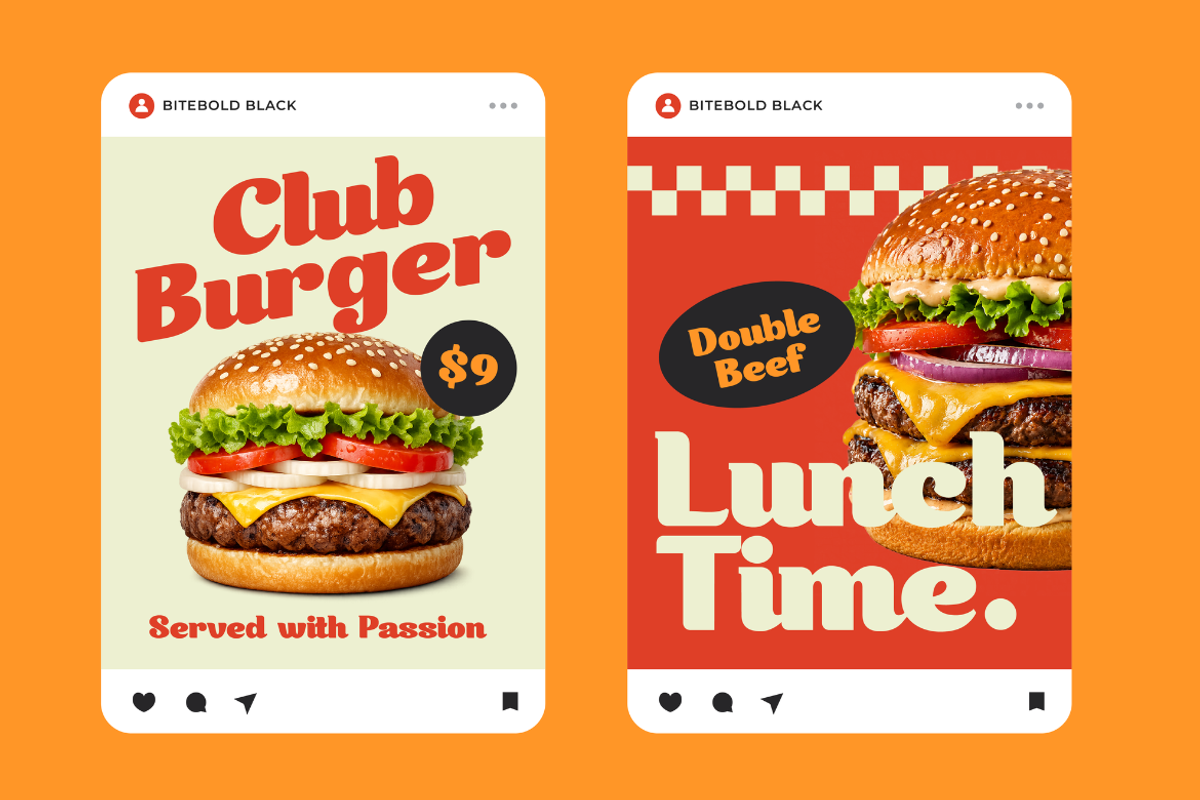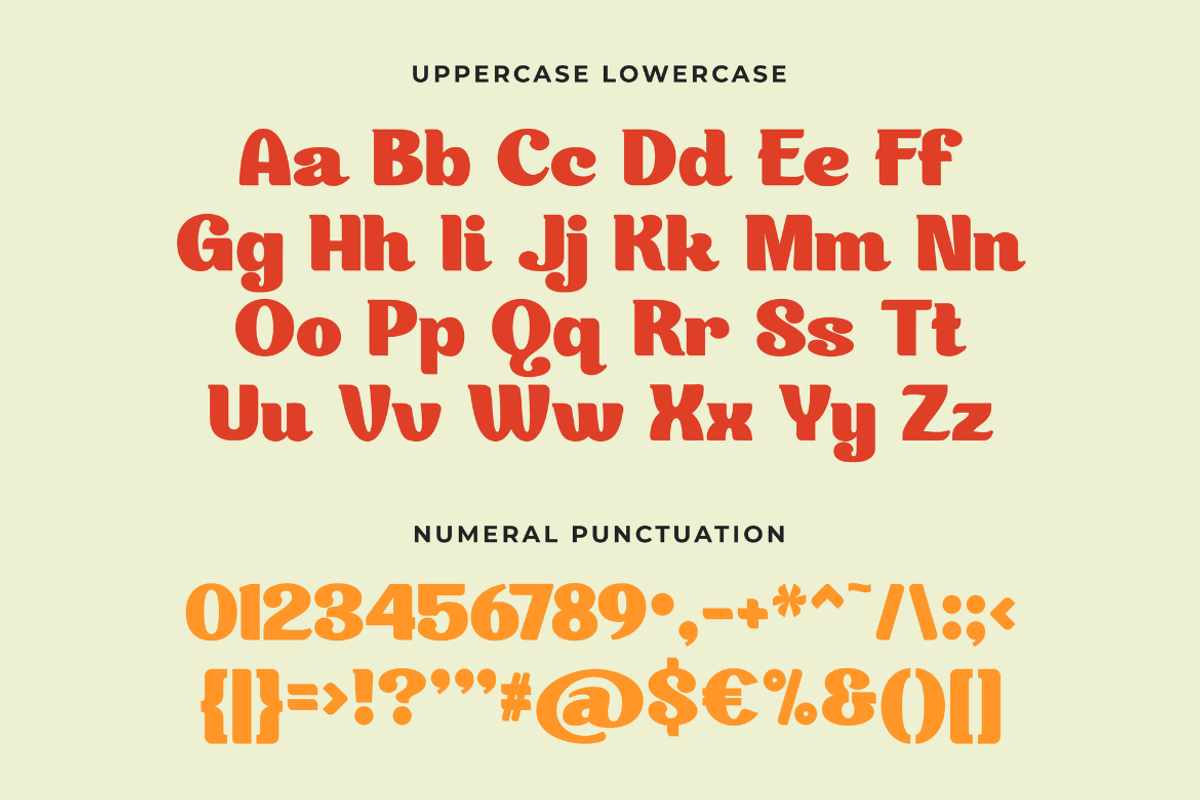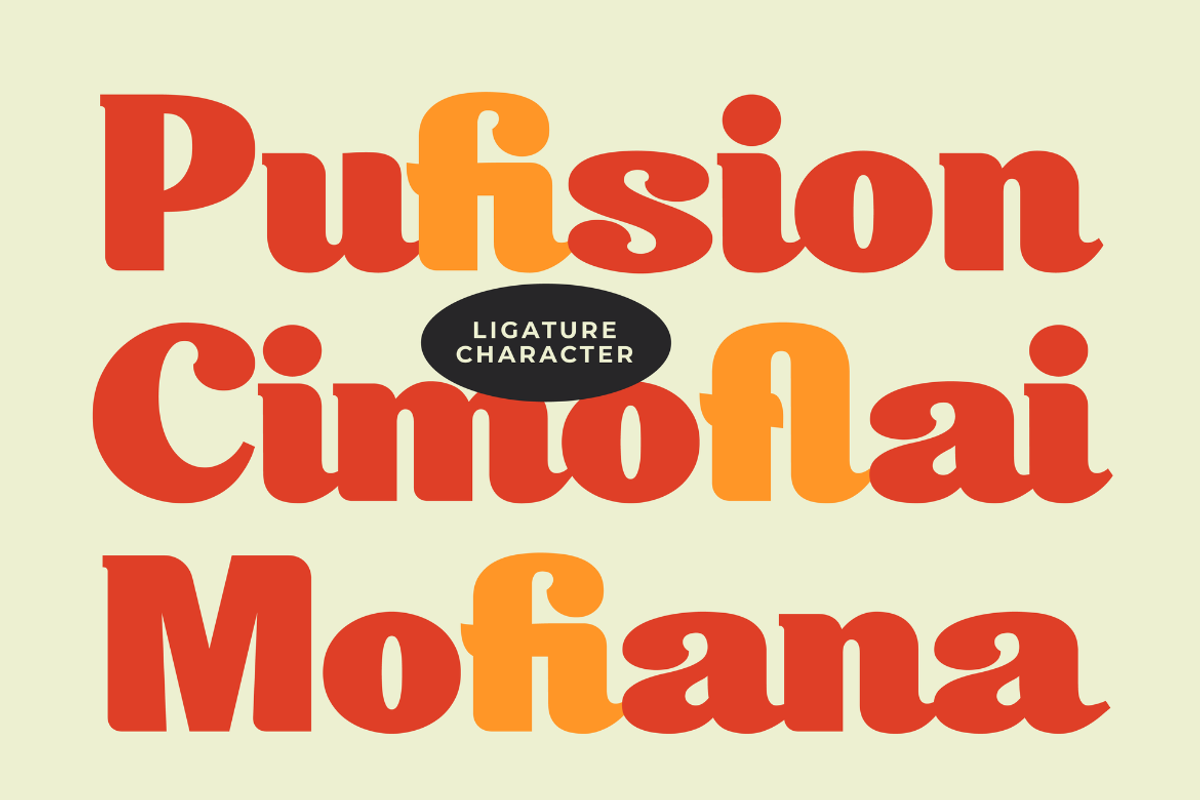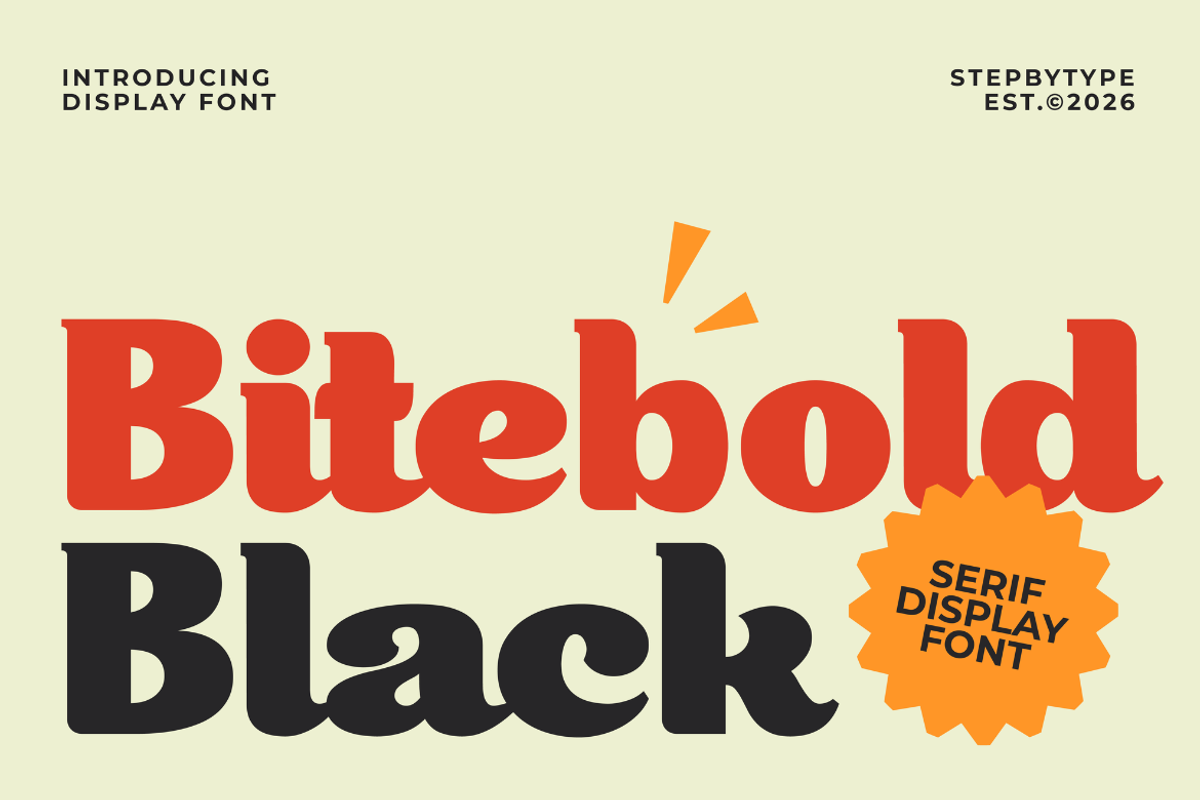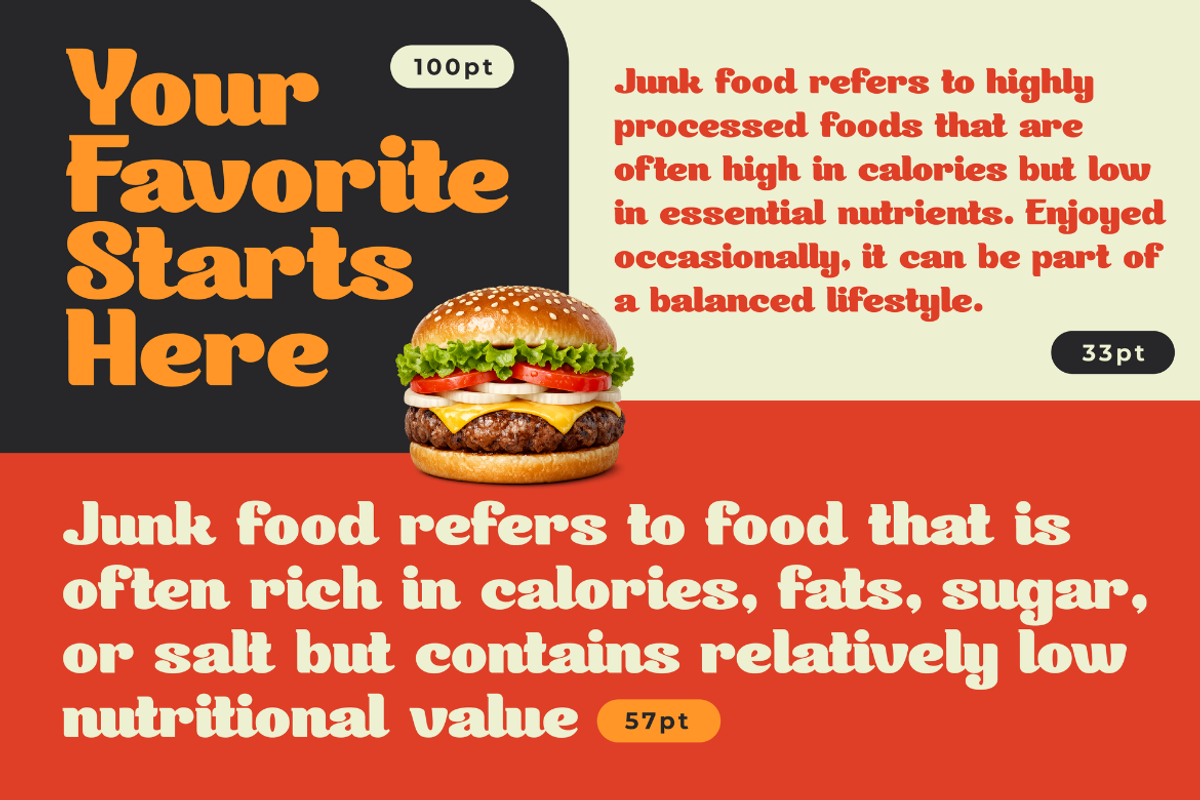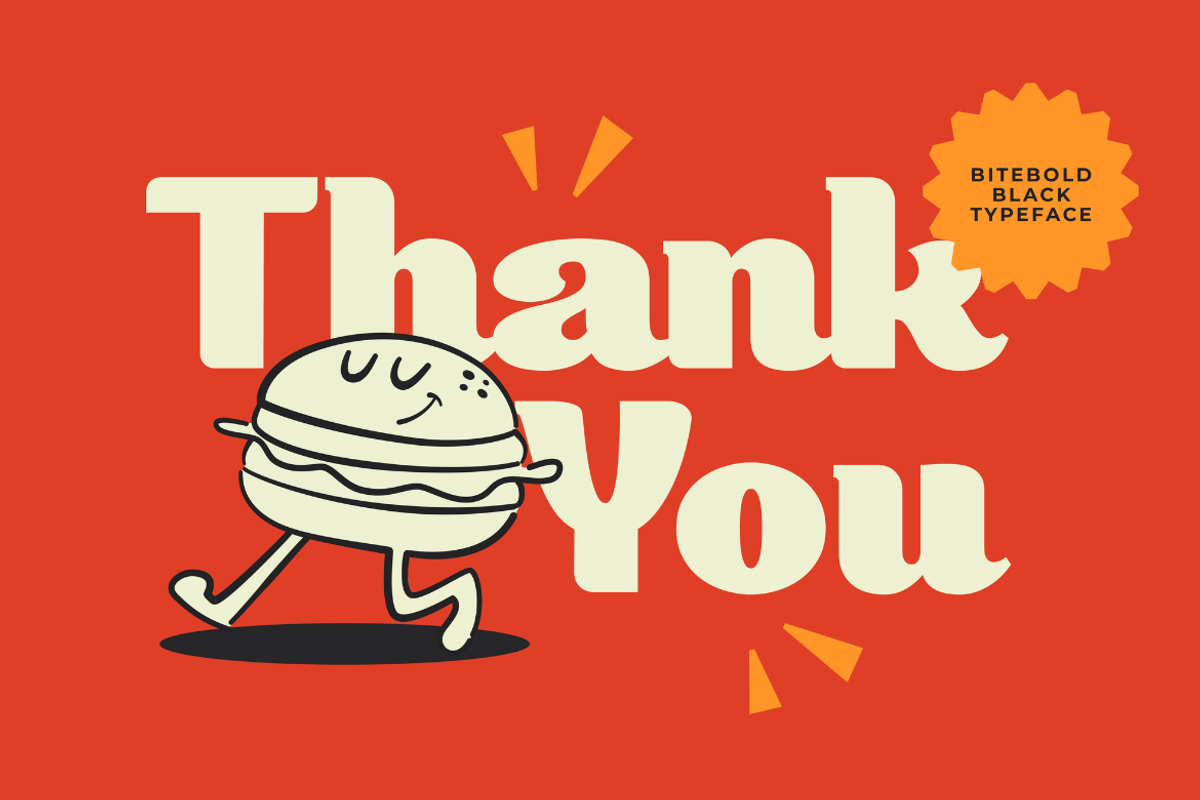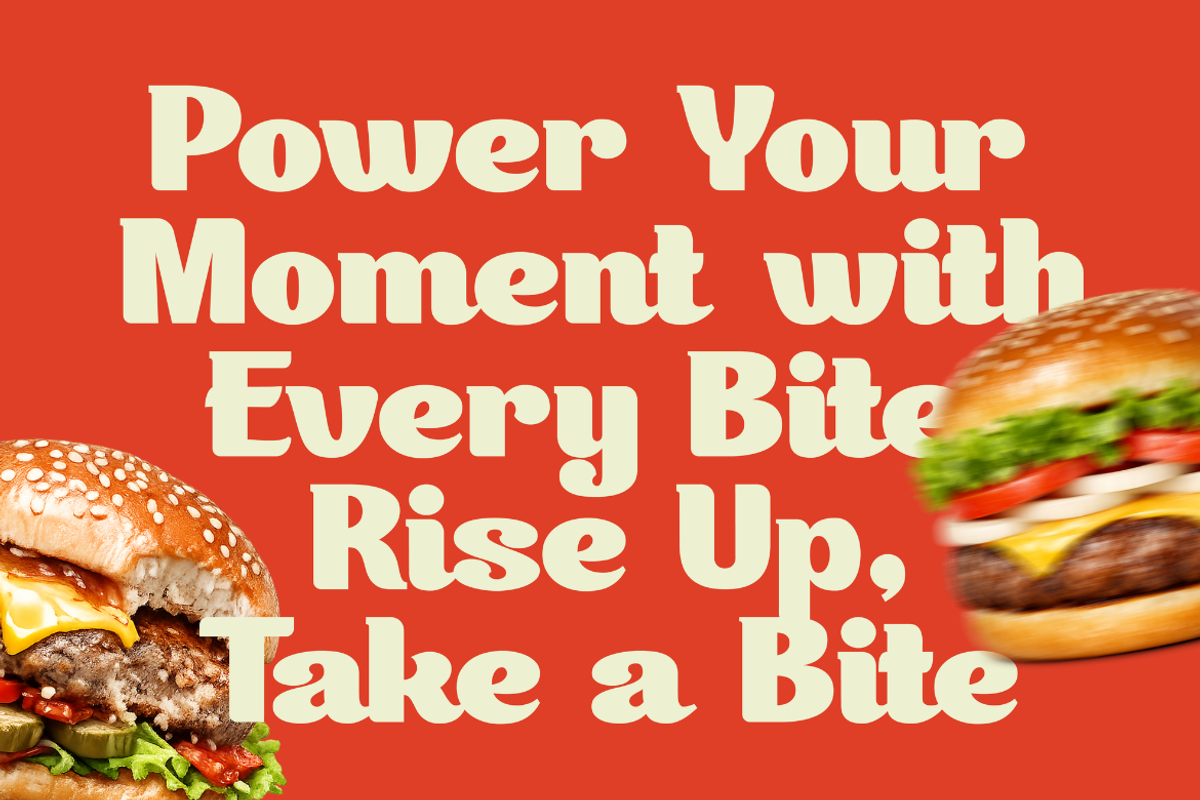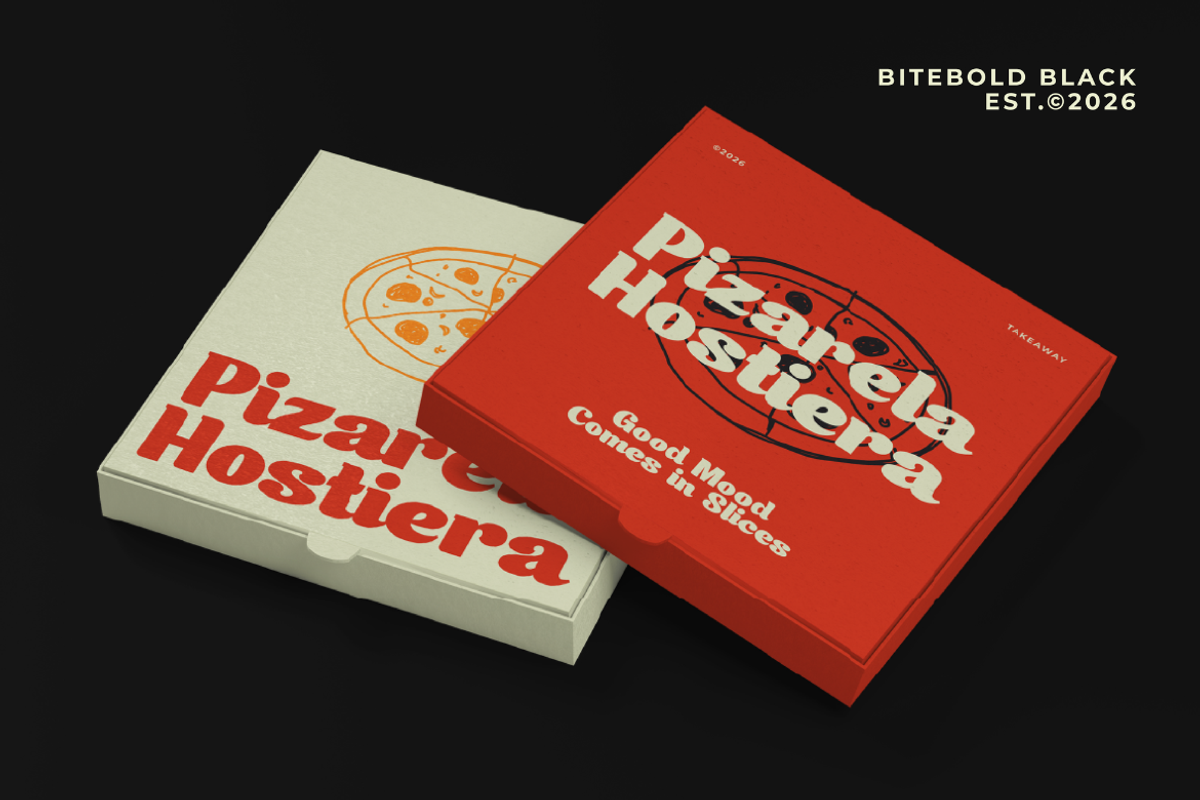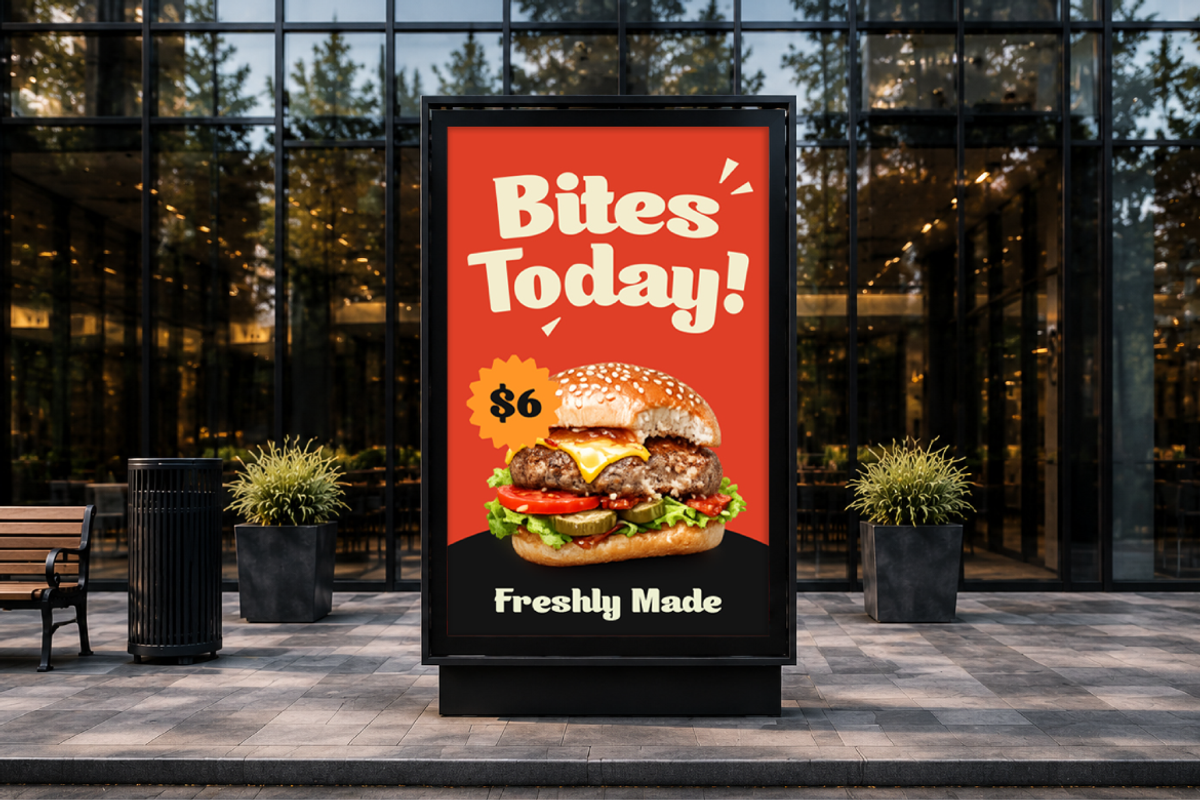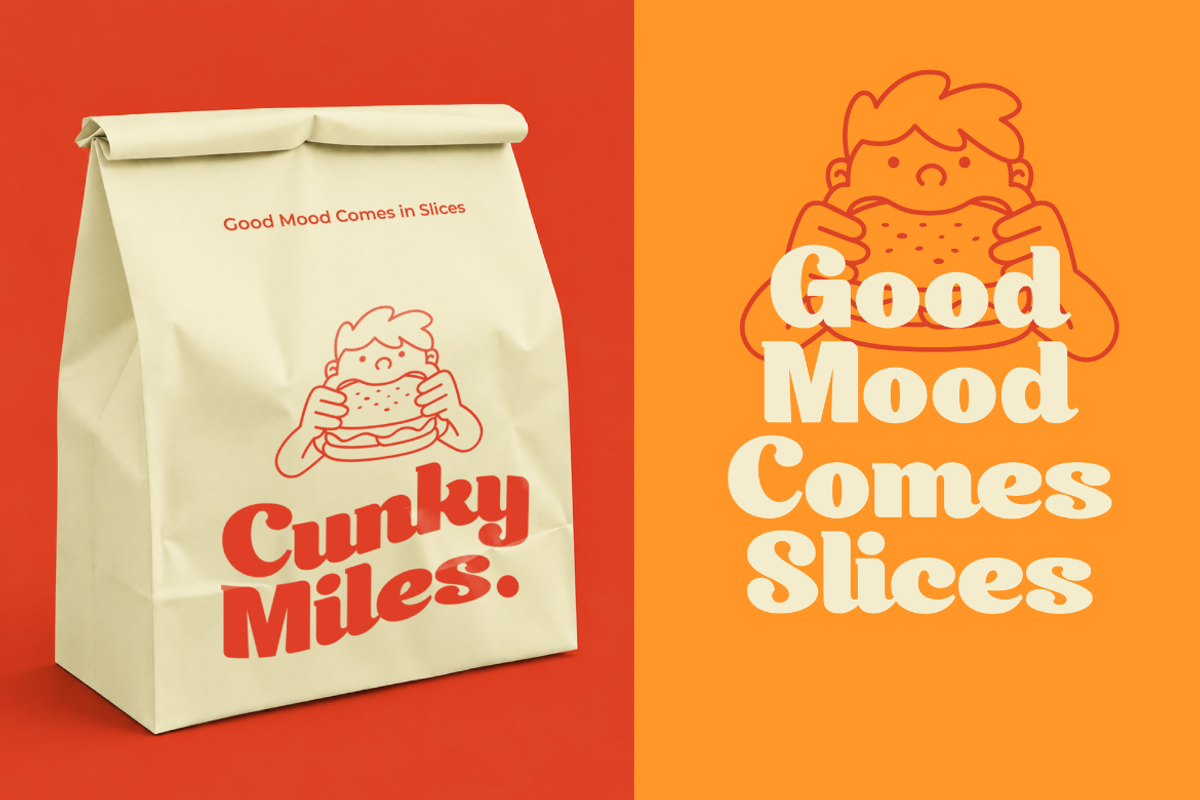
Bitebold Black
Bitebold Black is a heavy retro serif packed with curves, warmth, and mouth-watering personality. With its thick strokes, rounded terminals, and playful '70s energy, Bitebold Black is built to make food branding look irresistible — the kind of type that turns a menu, a burger box, or a sale poster into pure craving.
Where a clean display serif stays formal, Bitebold Black leans juicy and casual: friendly, bold, and full of flavor. With a complete set of uppercase, lowercase, numerals, and punctuation, it's ready for food & beverage branding, packaging, retro promos, and lifestyle brands that want to feel warm, nostalgic, and fun.